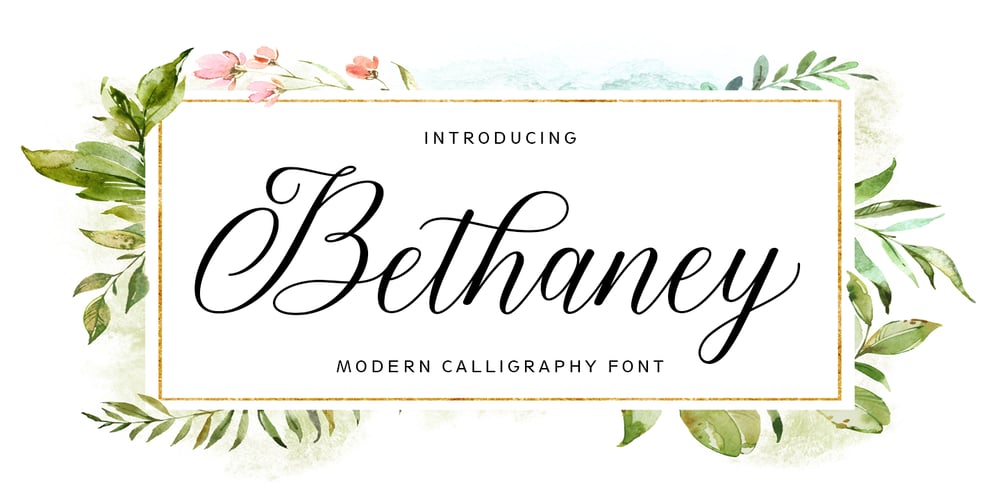
Bethaney Script
Bethaney Script font
Bethaney Script Font Family was designed by Fajar Gunawan and published by Fargun Studio. Bethaney Script contains 1 styles and family package options. Brithney Script is a new, fresh, and modern calligraphy font, including decorative characters and a dancing baseline. It’s so beautiful on greeting cards, branding materials, business cards, quotes, posters, and more.The included alternative characters were divided into several Open Type features such as Swash, Stylistic Sets, Stylistic Alternates, and Ligature. The Open Type features can be accessed by using Open Type savvy programs such as Adobe Illustrator, Adobe Photoshop, Corel Draw X version, And Microsoft Word. And this Font has given PUA code (specially coded fonts) so that all the alternate characters can easily be accessed.Features: Unique ligatures Stylistic Alternates Stylistic sets Basic Latin A-Z and a-z Numbers International Symbols included Punctuation Need help? If you need help or advice, please contact me by e-mail “fargunstudio@gmail.com”